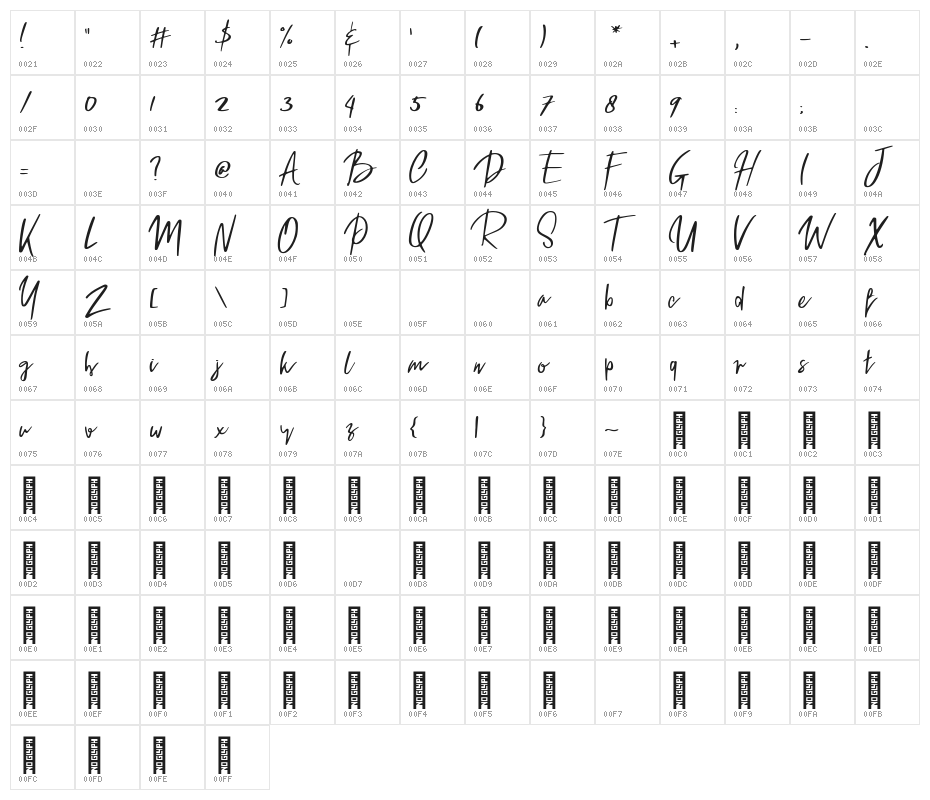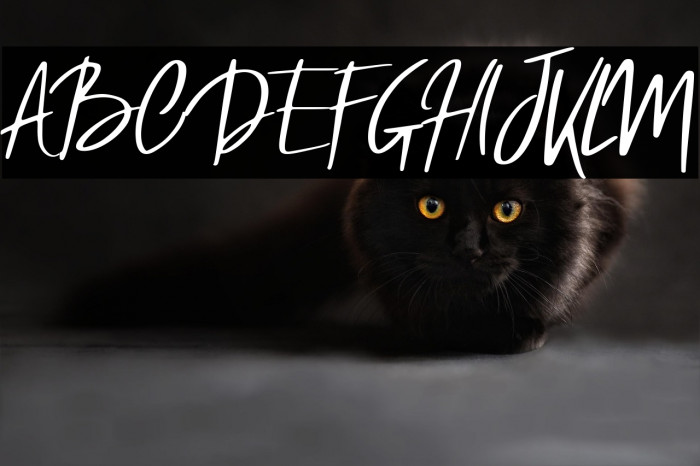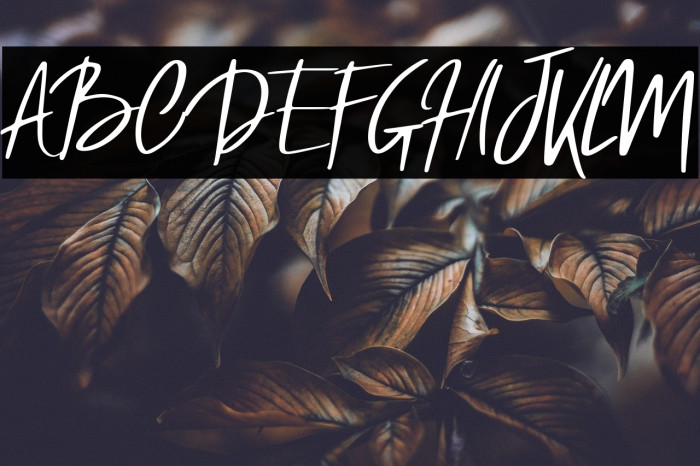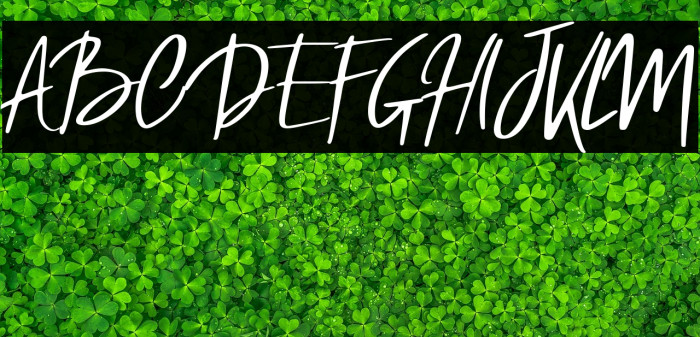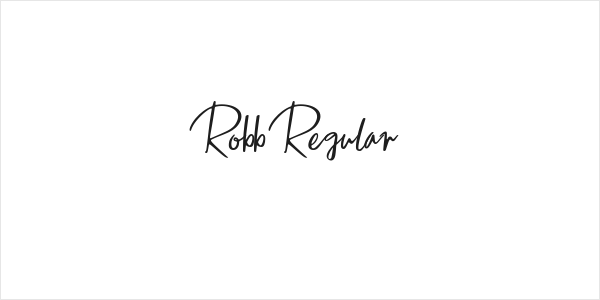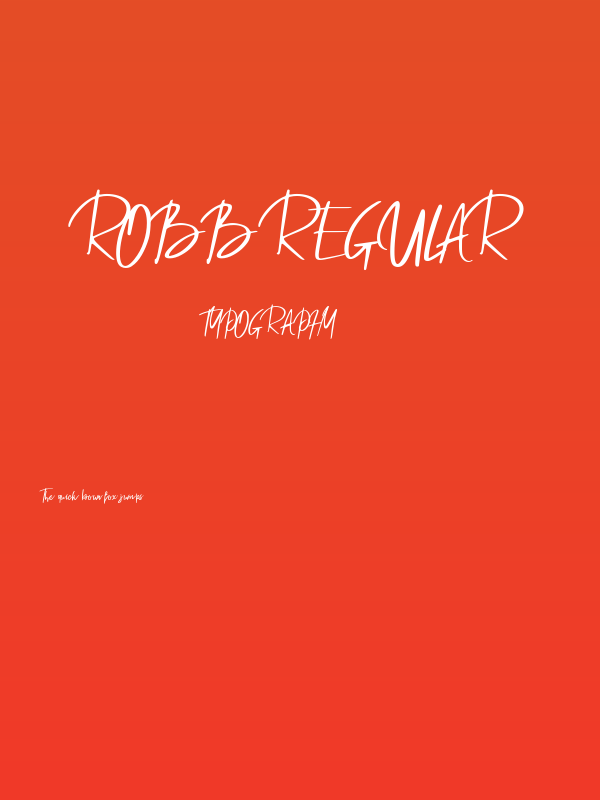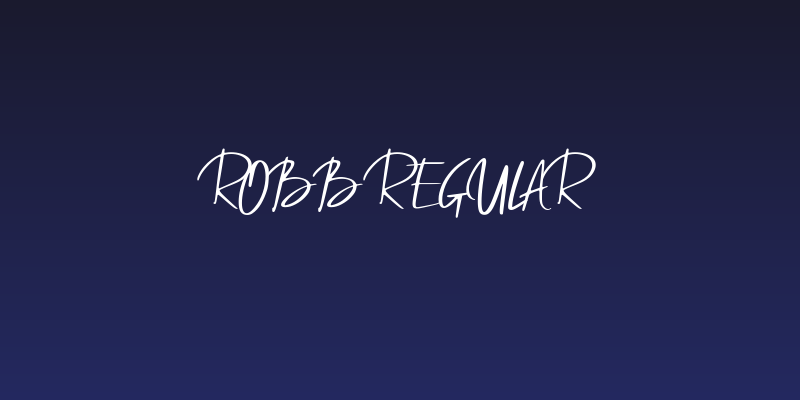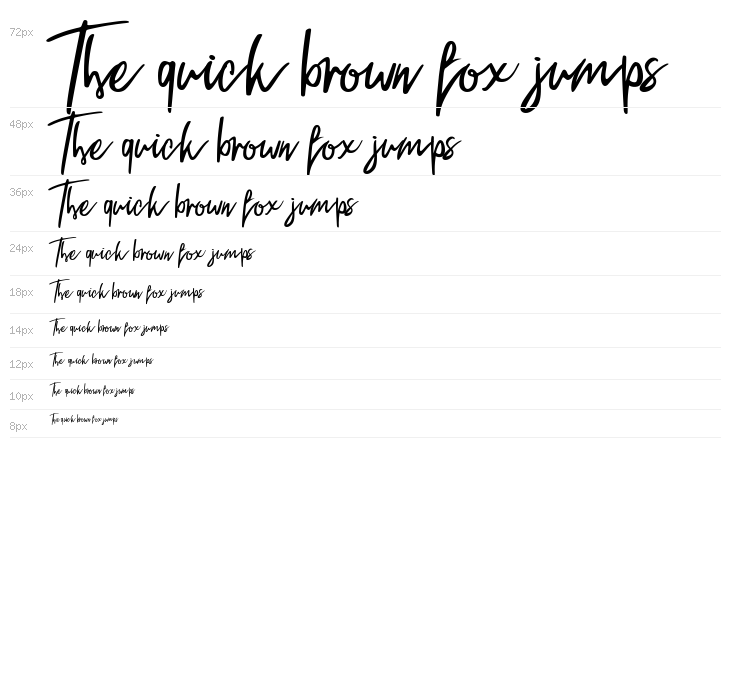
Robb Regular Font
Robb Regular Description
This font exudes a dynamic and energetic style, characterized by its handwritten appearance. The letters are fluid and connected, giving it a natural and personal touch. The strokes vary in thickness, adding a sense of movement and spontaneity. The uppercase letters are bold and prominent, while the lowercase letters maintain a consistent flow. Numbers and special characters follow the same lively style, making the font versatile for various creative applications.
| Use Case | Logos, Headlines, Creative projects |
| Proposed Projects | Ideal for personal branding, invitations, greeting cards, and creative projects that require a personal and informal tone. |